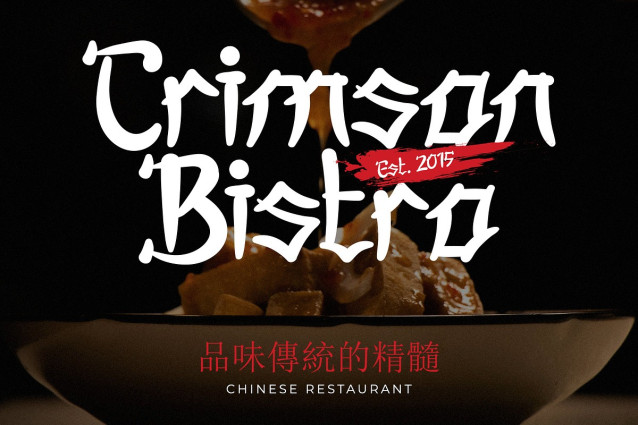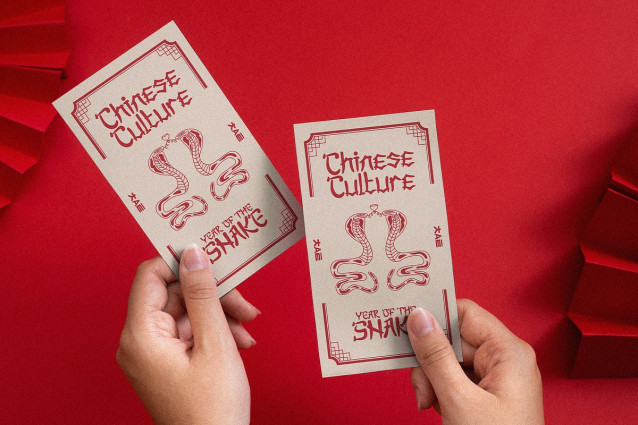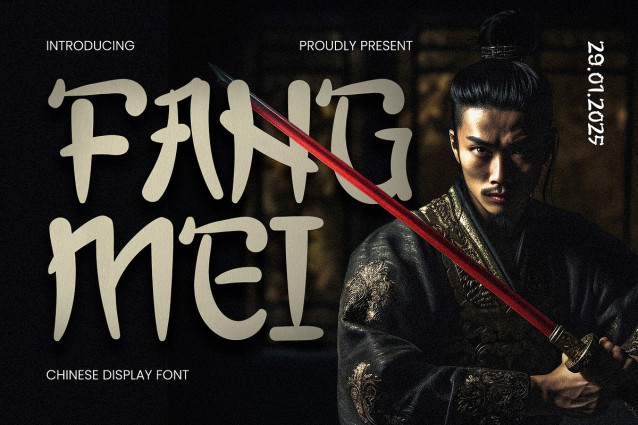
Fangmei Display Font
Fangmei Display Font is a bold display font with unique cultural influences, perfect for bold headlines, branding, and posters. With its bold letterforms and strong character, this font creates a distinctive and eye-catching impression, making it an ideal choice for design projects that require a strong and distinct visual impact.